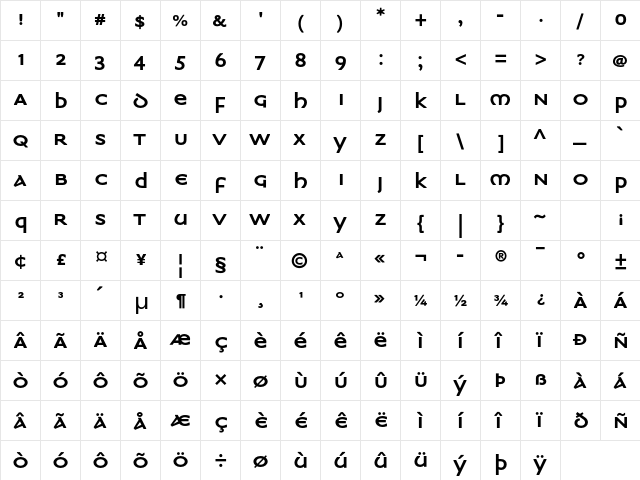
Medea ITC Std Bold
| Designer | Silvio Napoleone |
Design Context for Medea ITC Std Typeface
Medea ITC Std offers clean, dependable letterforms without strong stylistic allegiance, making it a practical choice for designers who need flexibility. The heavy weight commands attention and anchors typographic hierarchies.